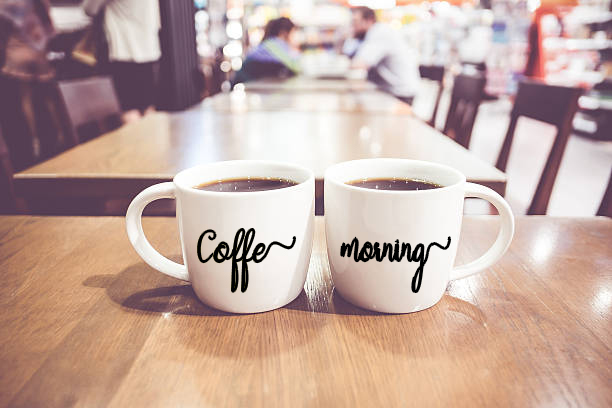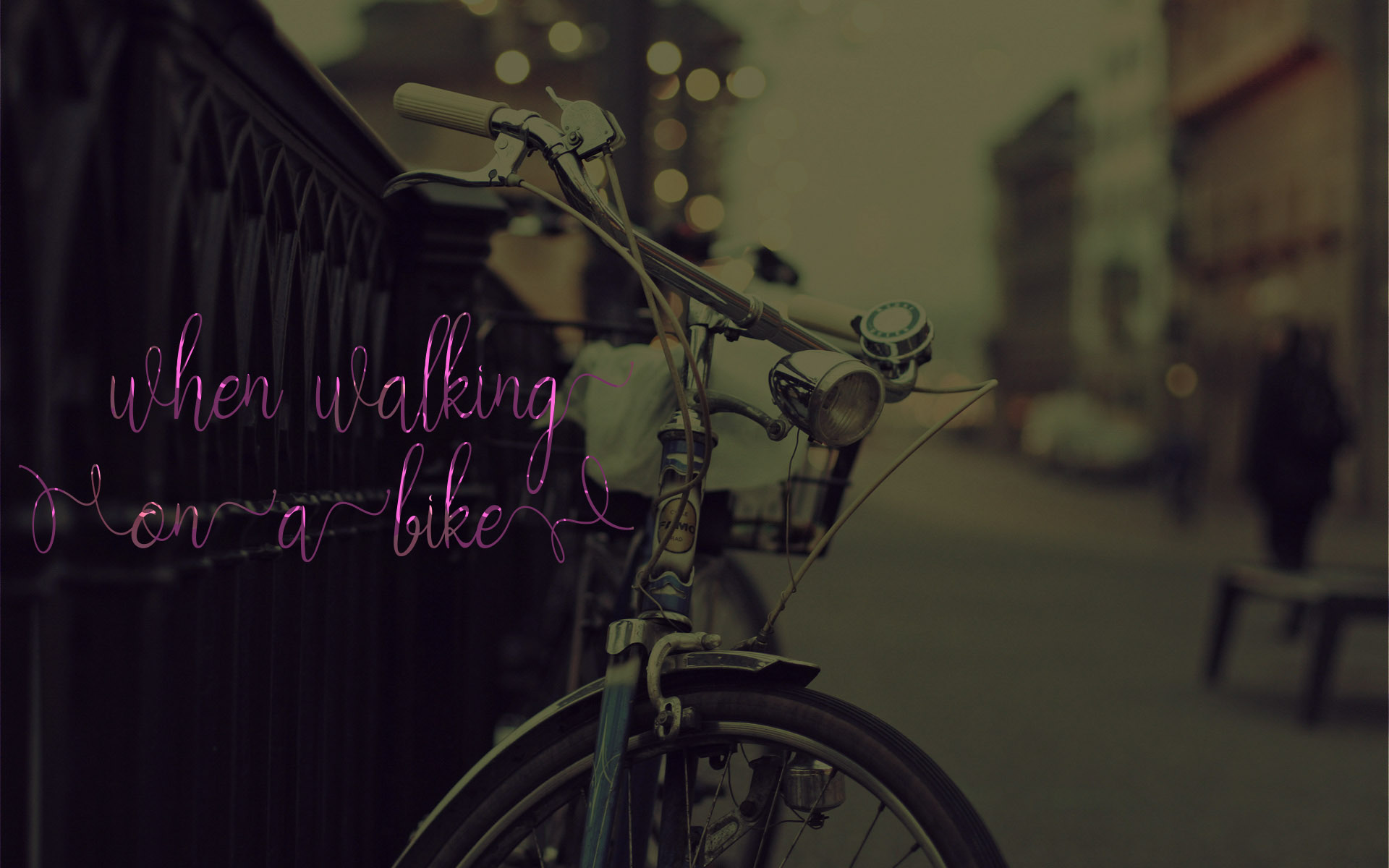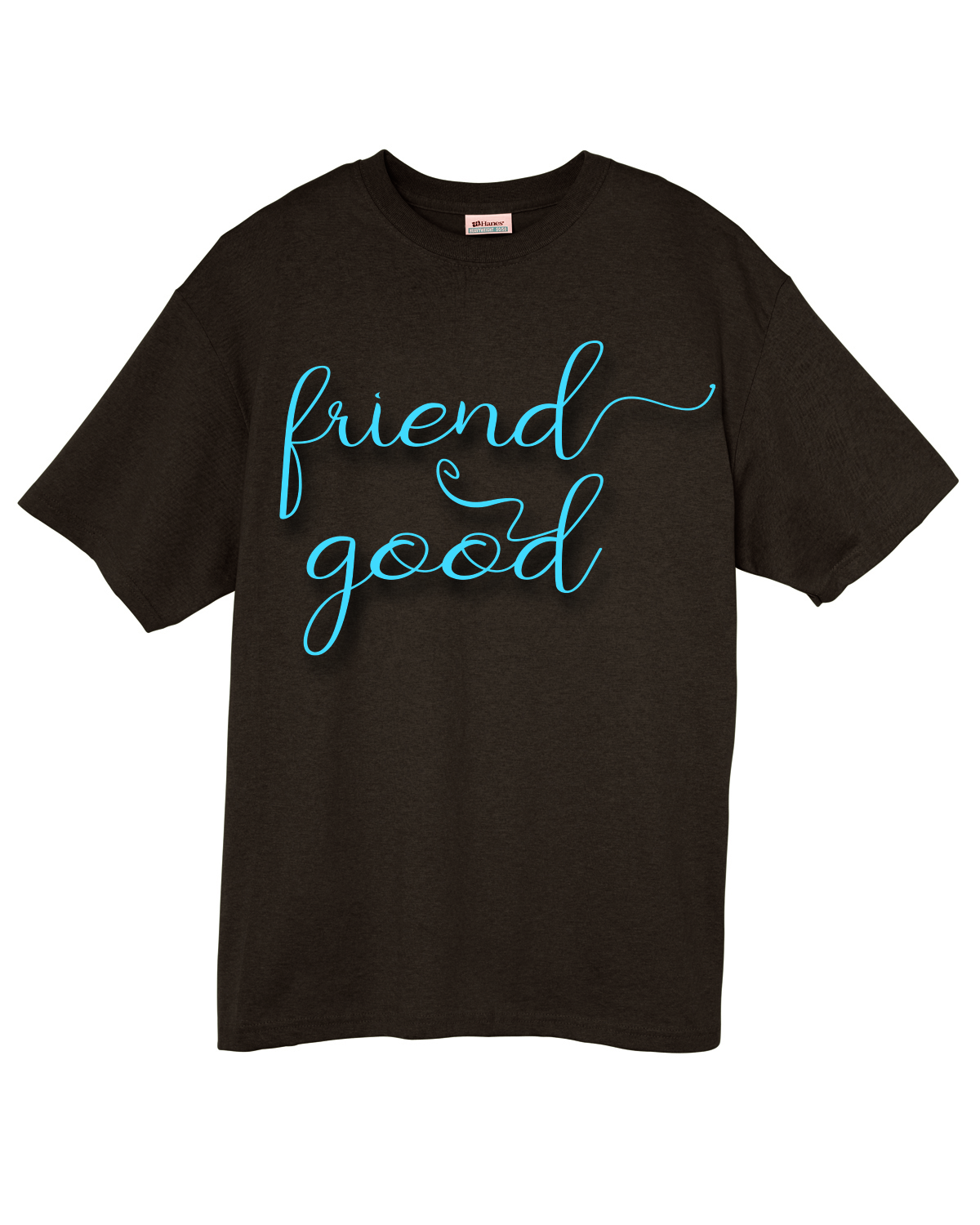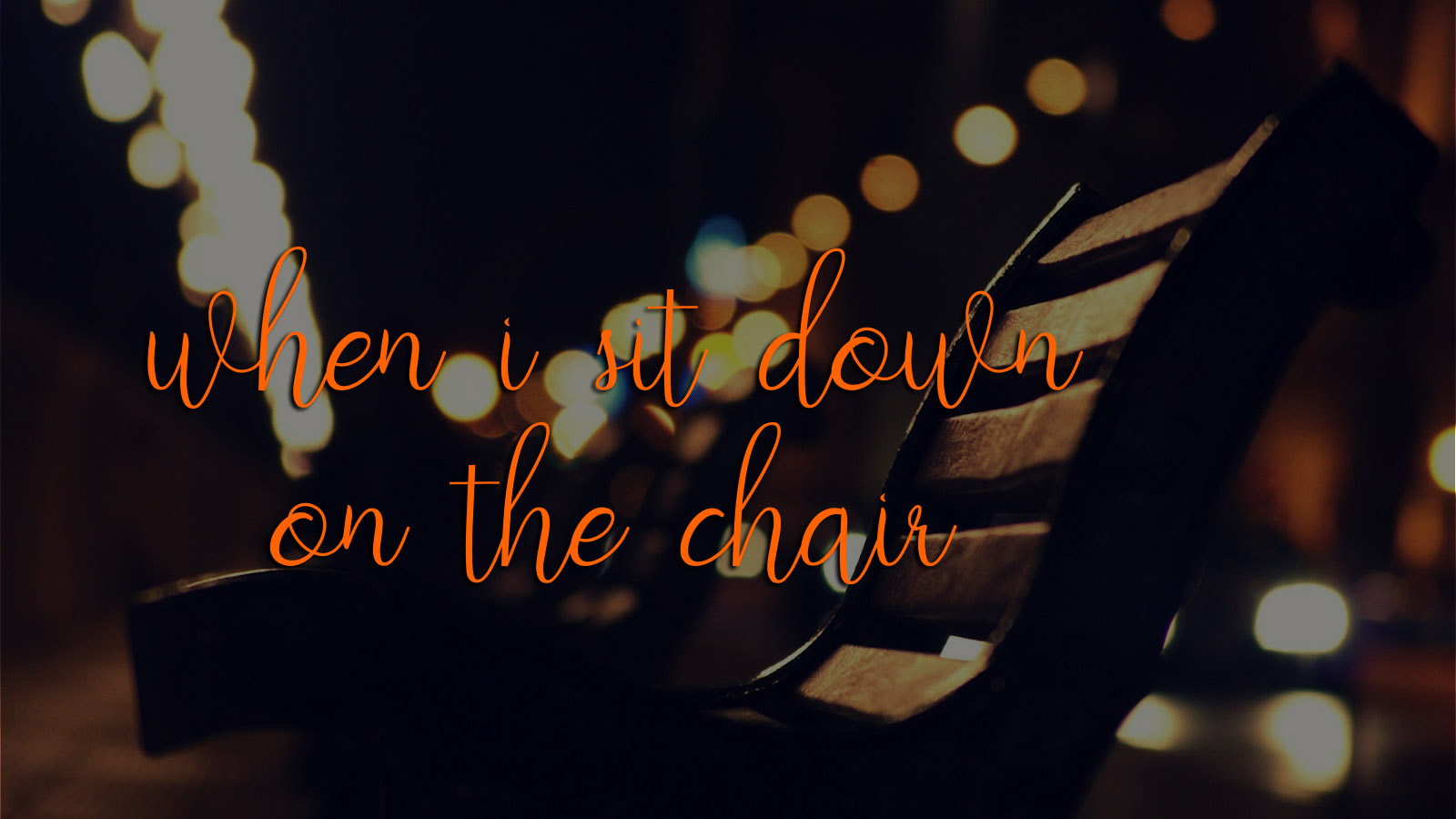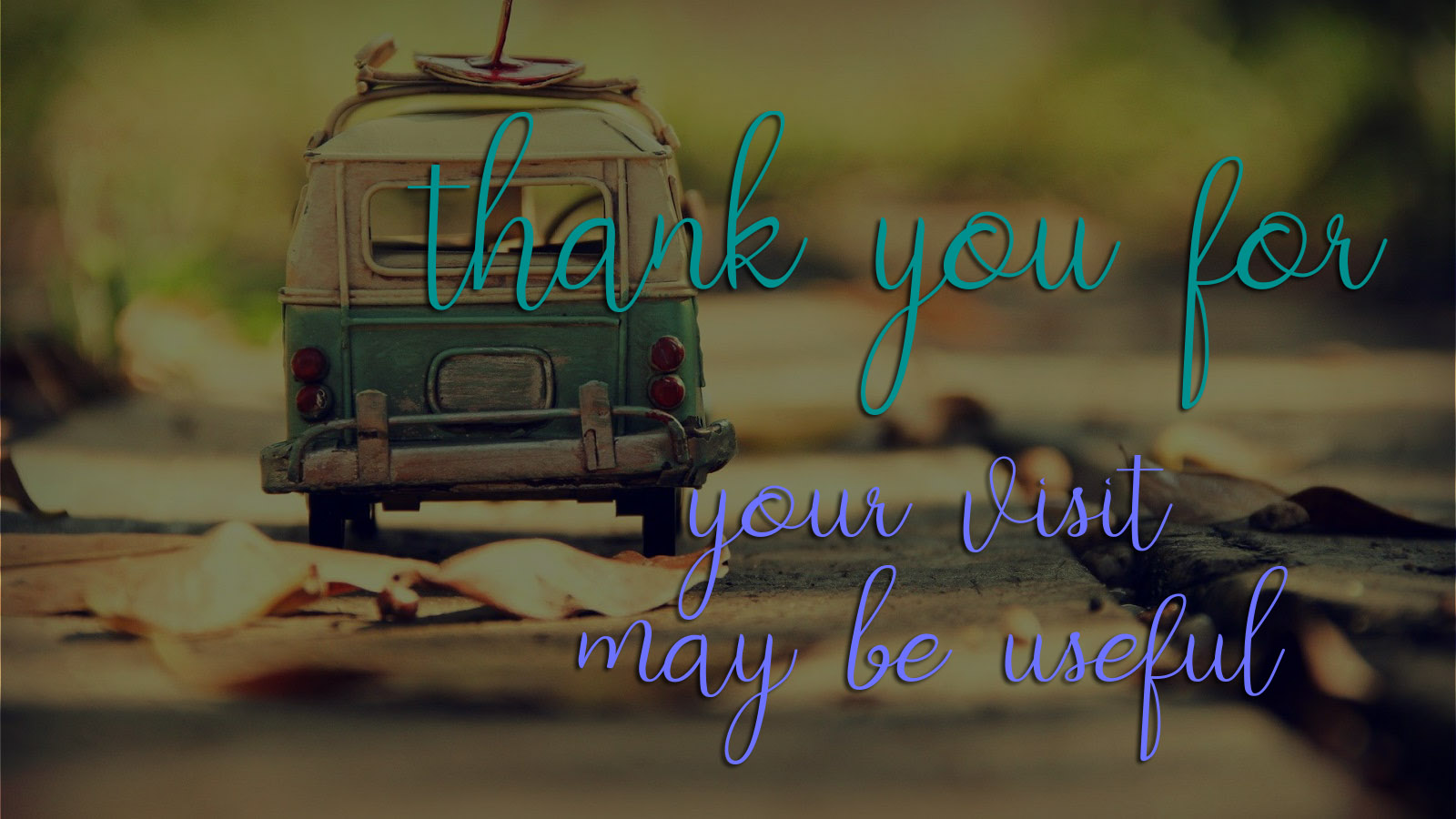
Darma Font: The Perfect Handwritten Style for Your Next Project
Are you looking for a unique and eye-catching font to elevate your next design project? Look no further than Darma Font, a beautiful handwritten font that’s perfect for adding a personal touch to your creations. In this article, we’ll explore the features and benefits of Darma Font, and show you how to make the most of this versatile and stylish font.
What is Darma Font?
Darma Font is a carefully crafted handwritten font that’s designed to bring a touch of elegance and sophistication to your designs. With its flowing lines and delicate curves, Darma Font is perfect for creating beautiful and eye-catching text that stands out from the crowd. Whether you’re working on a logo, a poster, a website, or any other design project, Darma Font is the perfect choice.
Key Features of Darma Font
So what makes Darma Font so special? Here are just a few of the key features that set it apart:
- Handwritten style: Darma Font has a beautiful, handwritten style that’s perfect for creating personal and engaging text.
- Unique character set: Darma Font includes a wide range of characters, including uppercase and lowercase letters, numbers, and punctuation marks.
- High-quality design: Darma Font is designed with precision and care, ensuring that every letter and symbol is crisp and clear.
Benefits of Using Darma Font
So why should you choose Darma Font for your next project? Here are just a few of the benefits of using this amazing font:
- Adds a personal touch: Darma Font’s handwritten style adds a personal touch to your designs, making them more engaging and relatable.
- Stand out from the crowd: Darma Font’s unique style ensures that your designs stand out from the crowd and grab attention.
- Perfect for branding: Darma Font is perfect for creating beautiful and memorable brand identities that leave a lasting impression.
- Versatile: Darma Font can be used for a wide range of design projects, from logos and posters to websites and social media graphics.
Tips and Tricks for Using Darma Font
Here are a few tips and tricks to help you get the most out of Darma Font:
- Use it sparingly: Darma Font is best used sparingly, as a accent font to add emphasis and interest to your designs.
- Pair it with other fonts: Pair Darma Font with other fonts to create a unique and eye-catching combination.
- Experiment with colors: Experiment with different colors and textures to add depth and interest to your designs.
- Pay attention to spacing: Pay attention to spacing and kerning to ensure that your text is clear and easy to read.
In conclusion, Darma Font is a beautiful and versatile handwritten font that’s perfect for adding a personal touch to your design projects. With its unique character set, high-quality design, and ease of use, Darma Font is the perfect choice for designers and crafters of all levels. Whether you’re working on a logo, a poster, a website, or any other design project, Darma Font is sure to impress. So why not give it a try and see the difference it can make?